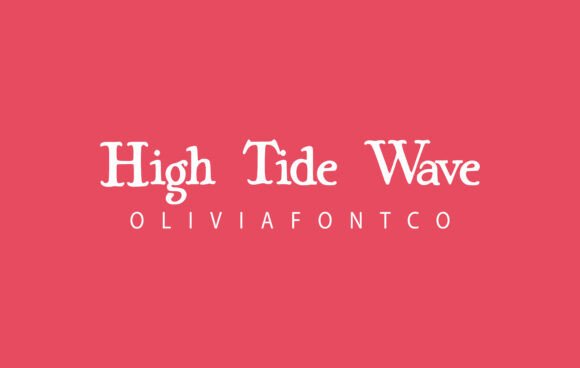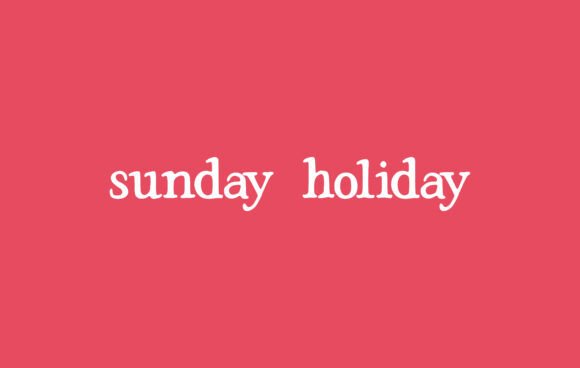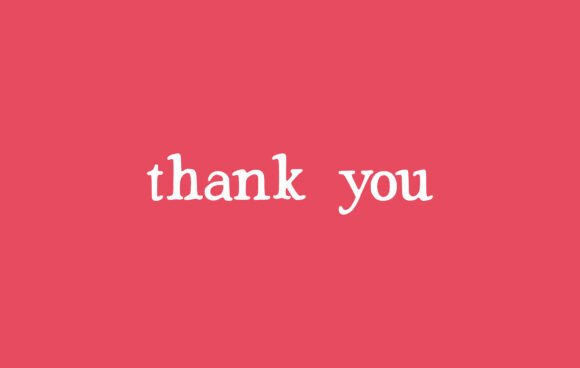
High Tide Wave Font
About the High Tide Wave Font
Elevate your designs with High Tide Wave Font, a font that combines sophistication with readability. High Tide Wave font is an authentic handwritten font with a romantic touch. Expertly designed to be a true favorite, this font has the potential to take your creative ideas to the highest level
High Tide Wave’s romantic, handwritten style shines brightest in headlines, short text blocks on invitations or packaging, and social media graphics. Its legibility is sufficient for short bursts of text, but the informal nature makes it unsuitable for body copy or lengthy paragraphs in books or websites. Avoid using it in UI design where clear readability is paramount.
The font’s core personality is romantic and playful, yet sophisticated. It’s ideal for brands focused on beauty, fashion, weddings, or artisanal goods. Consider pairing it with a clean sans-serif like Montserrat for a balanced contrast, or a delicate serif like Lora to enhance its romantic feel. A simple geometric sans-serif, such as Open Sans, could provide a modern counterpoint if a more contemporary feel is needed.
For a bolder presentation, juxtapose High Tide Wave with a contrasting script font, but choose one with a less ornate style to avoid visual clutter.
High Tide Wave Font Usage Examples
High Tide Wave Font Example